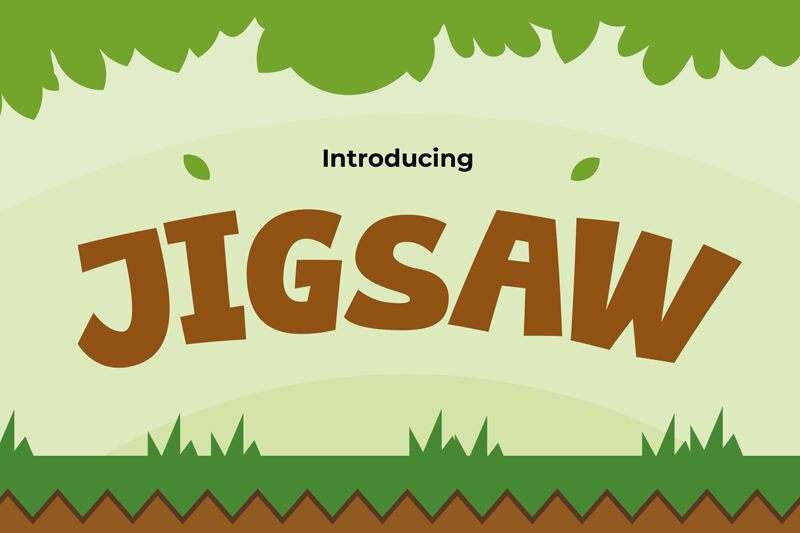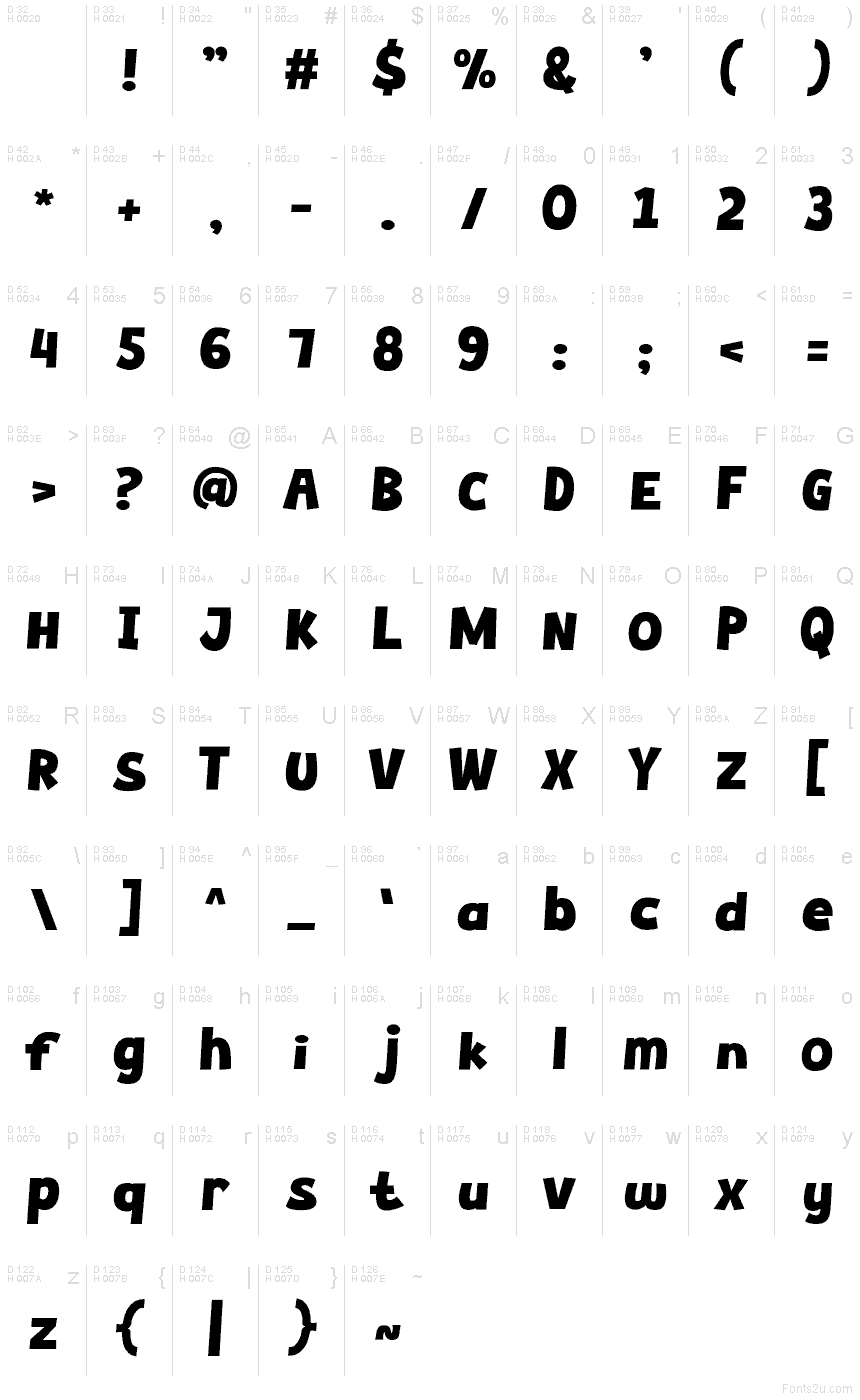
JIGSAW
Jigsaw font by Pinisiart is a free bold comic display font. Built around chunky, hand-cut shapes, it leans and wobbles just enough to feel lively without losing legibility. The letters look like puzzle pieces snapped together—broad strokes, rounded corners, and a springy baseline create a bouncy rhythm that reads loud and friendly at a glance.
This free font shines on toy packaging, kids’ logos, game titles, classroom posters, party invitations, and YouTube thumbnails. Its dense forms and tight rhythm pack a punch in short headlines, where the inky weight and soft edges add cheerful impact. Pair Jigsaw with a clean geometric sans for body copy, and give it generous tracking at large sizes to let the curves breathe.